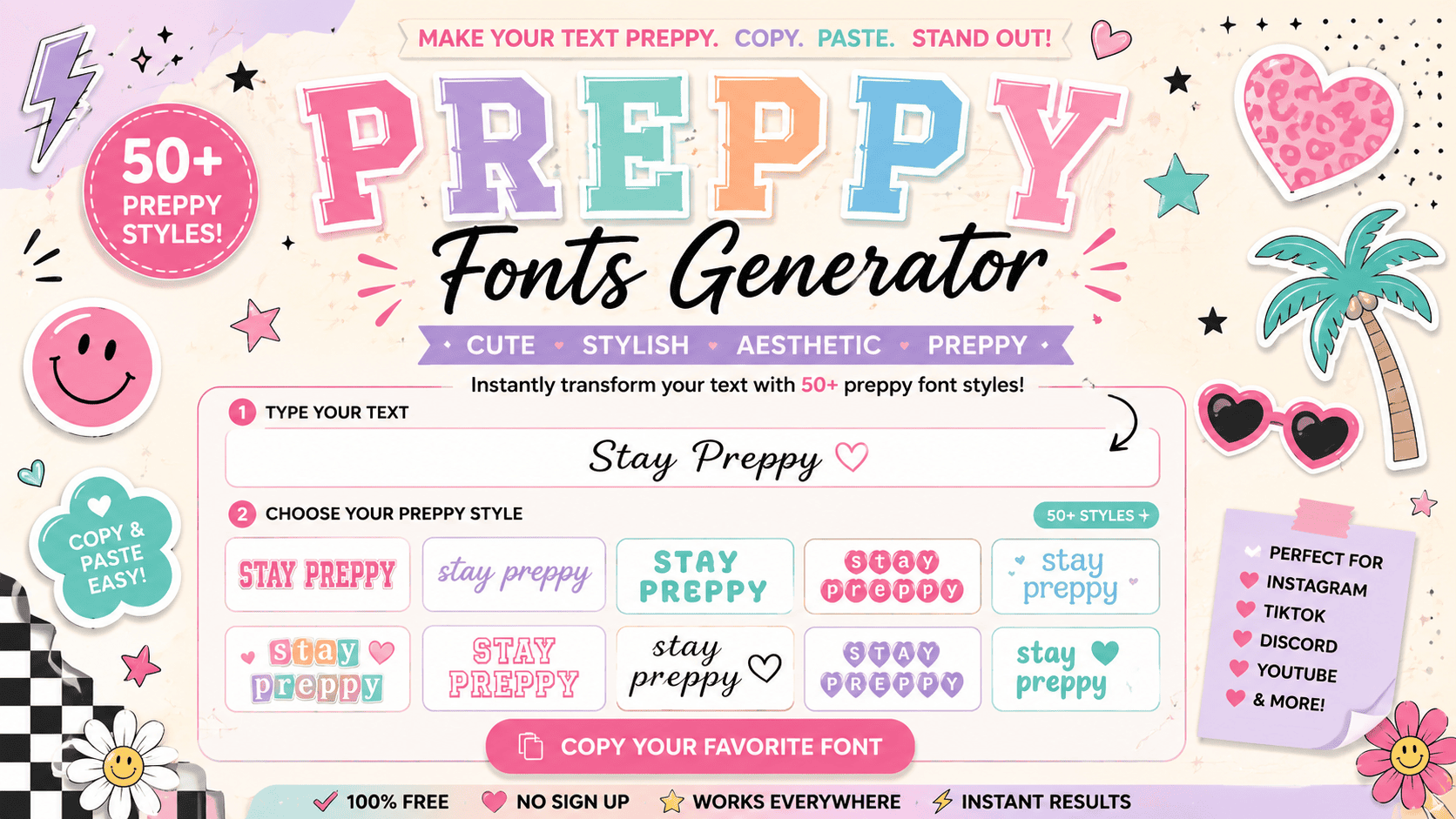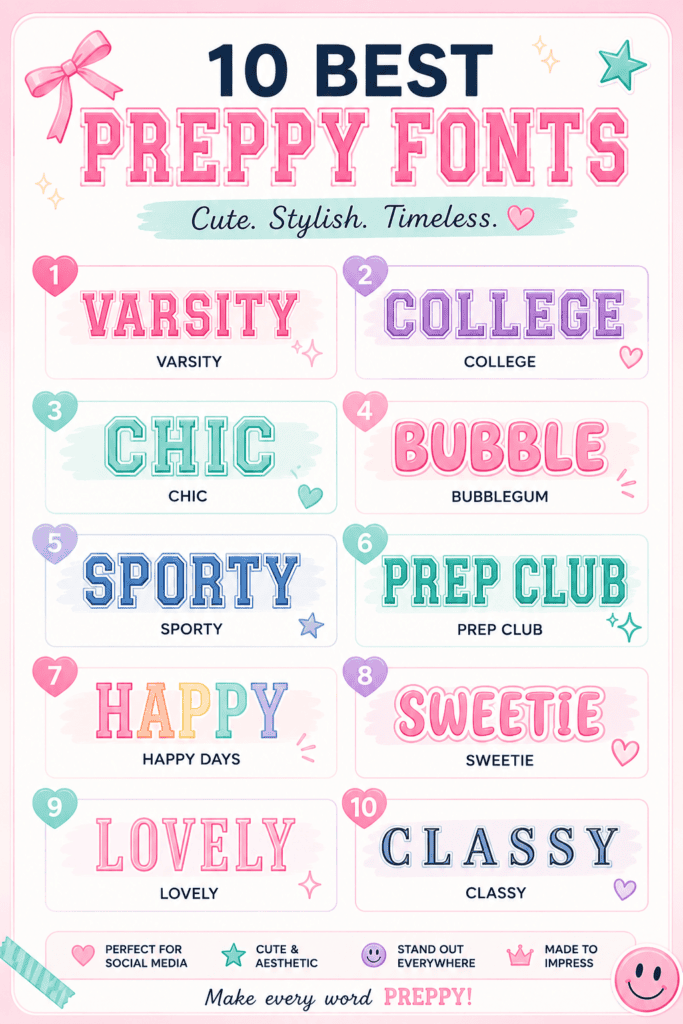
Observing digital subcultures closely reveals how preppy fonts establish an immediate visual signature. Utilizing a free online tool to manifest elegance directly alters engagement metrics across platforms. This uniqueness relies heavily on custom Unicode structures.
My extensive consulting work shows that cute fonts inject unexpected playfulness into otherwise stale corporate layouts. When modern creators format text using bold text, they instantly bypass standard platform limitations, successfully redefining typographic styles completely.
Emphasizing visual identity requires distinct tools in design circles. When users input standard text, the underlying engine replaces standard characters with rare Unicode symbols. This dynamic framework outputs an elegant alternative for modern social media.
My experience shows that integrating a stylized script completely redefines digital presence. Whether you apply these custom aesthetics inside your personal Instagram bio or utilize flowing cursive variations, the resulting text bypasses restrictive default parameters.
Forget complex design tools. Instead of wrestling with any typical interfaces, I approach digital typography exactly like personal alchemy. When you input raw thoughts, you literally manifest Unicode symbols creating aesthetic names through pure resonance.
A single button press drastically alters your psychological identity online. Simply copy outputs directly to your clipboard and let this glitchy style spread. This subversive technique effortlessly produces a total makeover manipulating visual attention instantly.
Styling novel presentation on Instagram or TikTok demands specific vibrancy. Through direct observation, we see that embedding quirky gothic variations inside Roblox or Snapchat ecosystems forces immediate audience focus without any standard technical limitations whatsoever.
Steering dynamic communication channels like WhatsApp or Twitter toward deeply stylized messaging disrupts cognitive monotony. Implementing these glyphs remains always free, allowing shrewd practitioners to bypass ordinary constraints and execute highly visual interface layout frameworks.
Managing fonts requires separating mere preppy design from structural sophistication. In my practice, blending elegant cursive fonts alongside a bold bubble style shifts an entire layout, creating balanced leading styles that escape traditional design limitations.
Evaluating each category unlocks unexpected digital expressions. Integrating outlined letters offers high readability while anchoring structural whimsy, ensuring that customized decorative fonts subvert standard glyph restrictions to deliver authentic online resonance without compromising systemic value.
Generating unique cursive text demands sharp design skills to manifest real personality. Modern content creators manipulate Unicode characters to bypass standard layout boundaries, ensuring every single profile displays polished elements with highly captivating user experience.
Utilizing an advanced font generator unlocks bold gothic fonts alongside beautiful fonts built for cross-platform efficiency, establishing an ideal aesthetic match across multiple digital interfaces without sacrificing the core stylistic values of modern typography systems.
Font Changer: Transform Your Text In Seconds
Digital aesthetics challenge standard layouts. Using a modern font changer fundamentally transforms simple letters into artistic expressions within seconds. My design trials prove that utilizing this structural shift provides unique typography across standard platforms effortlessly.
Observing how an online community interacts reveals that instant fast discovery alters user engagement. Simply execute a quick copy and paste mechanism to deploy fancy fonts that bypass restrictive, boring default device constraints completely today.
Preppy Font Examples & Popular Uses
Digital identity structures rely on subverting traditional layout expectations. Utilizing an elegant script or altering user playfulness transforms sterile outlets into experiential environments. Practitioners intentionally deploy preppy fonts to trigger deep psychological human reception mechanisms.
Linguistic choices establish immediate cultural resonance before reading begins. Integrating unexpected cute letters infuses numerical information with distinct personality, challenging rigid corporate standards. This strategic focus on curated quirkiness redefines visual communication network benchmarks entirely.
Normal Text to Fancy Fonts — Quick Examples
Embracing a dramatic script font alters digital expression completely, moving beyond standard layouts. My testing reveals how fancy typography breaks traditional presentation boundaries. Transforming standard layouts yields fresh ways to showcase complex, unusual designs effortlessly.
Digital design enthusiasts frequently wonder if they must invest financially to obtain elegant typographic upgrades. Fortunately, our 100% free platform features no limits and requires no account creation to unlock hundreds of unique aesthetics.
Do Preppy Fonts Work on TikTok?
Algorithm dynamics prioritize TikTok engagement via unconventional aesthetics. Our testing shows video text utilizing a specialized Instagram font generator increases retention. Creators bypass generic overlays by employing stylized alphabets for engaging text, avoiding platform bans.